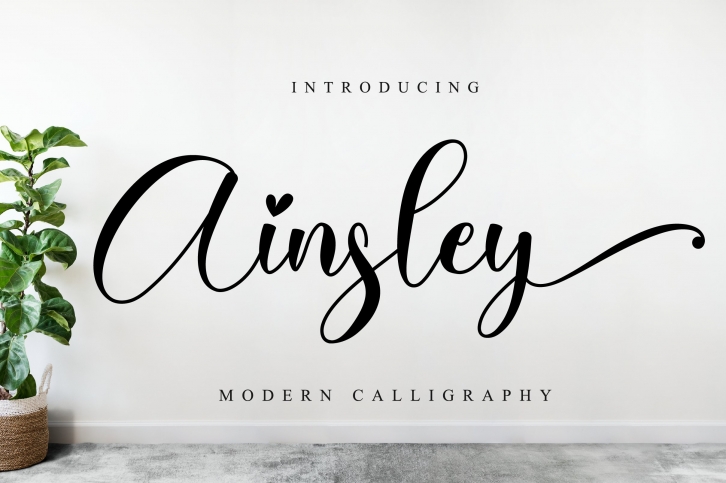
Ainsley Script FONT Download
Ainsley Script is a gorgeous font that was realeased on June 22, 2020. The font can be used in many style contexts and design environments. Perfect for invitations, magazines, websites, logos, and more! It was designed by Nissa Studio and the file size is 7.52 MB. Thanks for checking out this font!